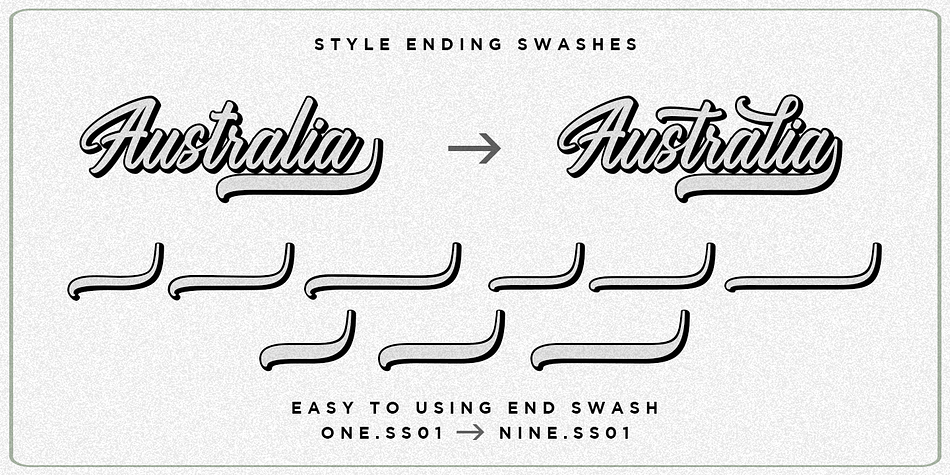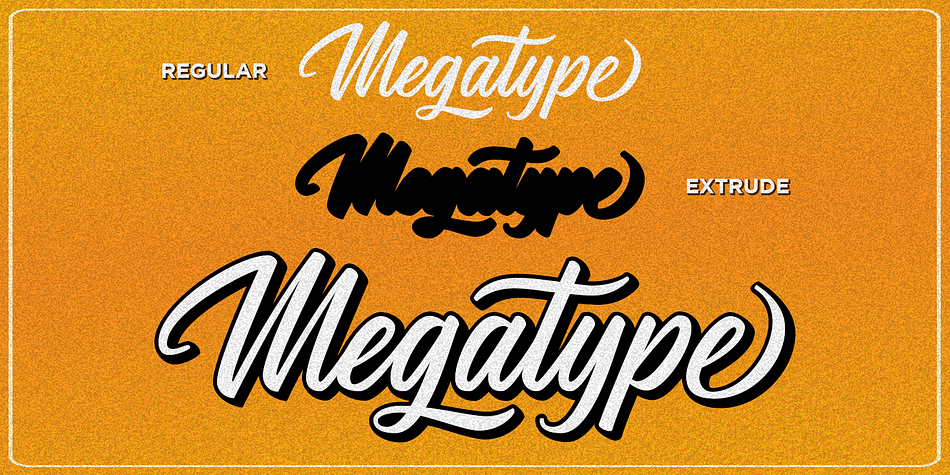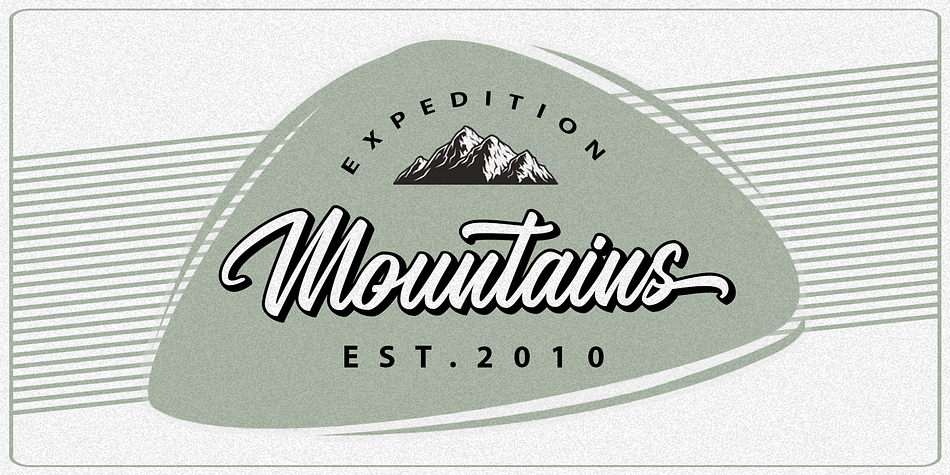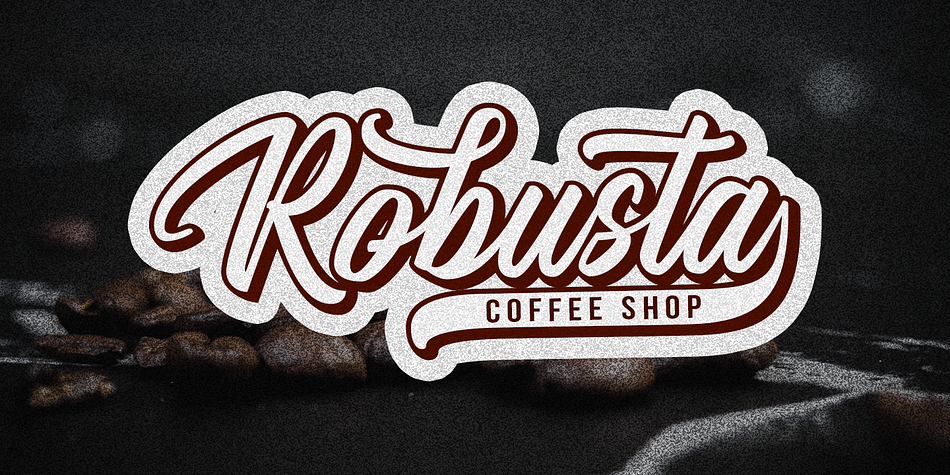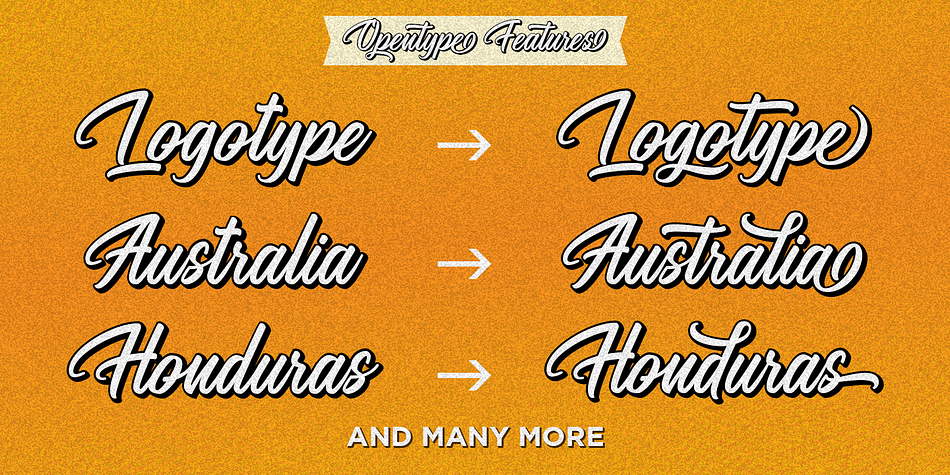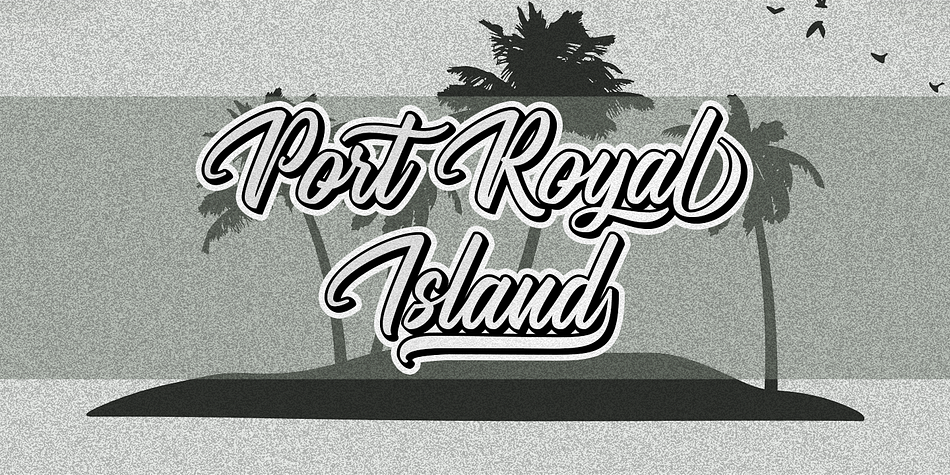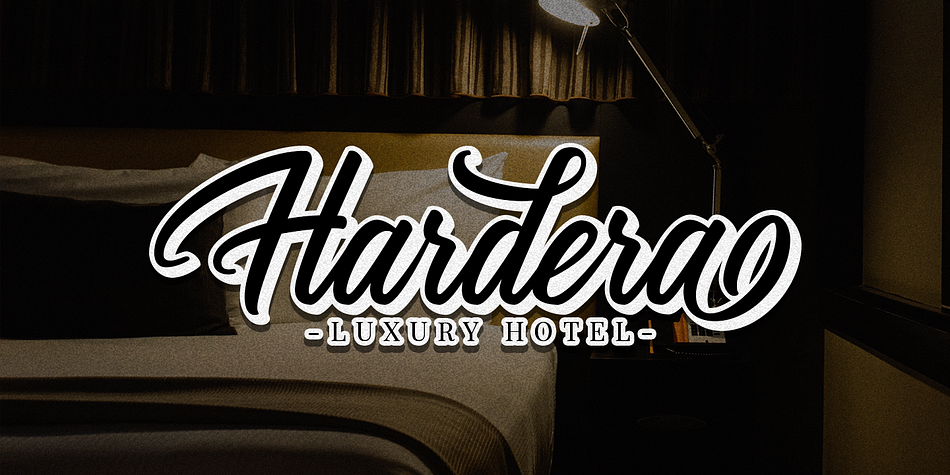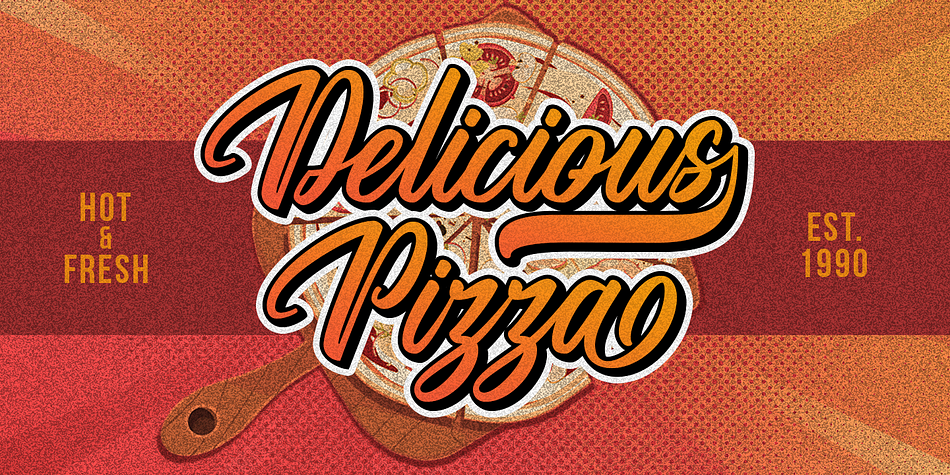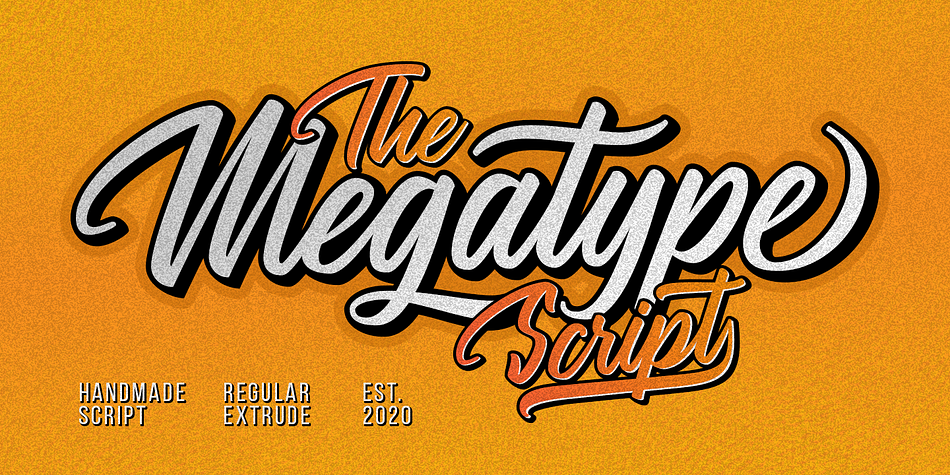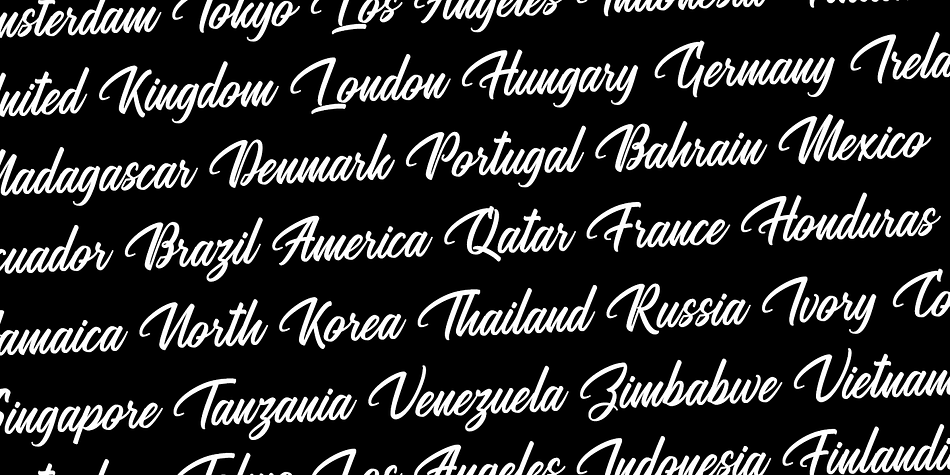
The Megatype Script
The Megatype Script is a brush script and retro font family. This typeface has two styles and was published by Mega Type.
THE MEGATYPE SCRIPT
Megatype Script is a handmade script that comes with a extrude effect. This font Inspired by Retro style and combination with Hand Lettering style. I hope this can make inspire you from your work. You don’t need extra effort to create an extrude effect for this font. That’s because we include the extrude with this font. This means you can saves your time by only adding the extrude font on the back layer.
Megatype Script is great for Logotype, Branding Design, Logo Design, Digital Lettering Arts, Poster, T-Shirt/Apparel, Magazine, Quotes, Signs, Instagram Design, Advertising Design, and any Type Design needs.
Megatype Script also has a standard Multilingual Support.